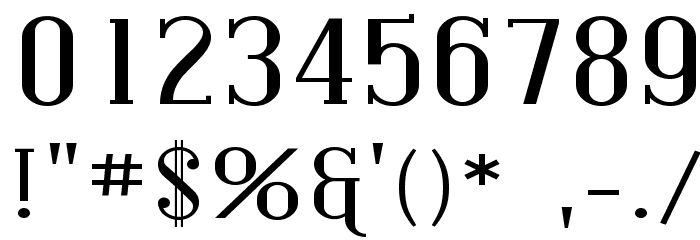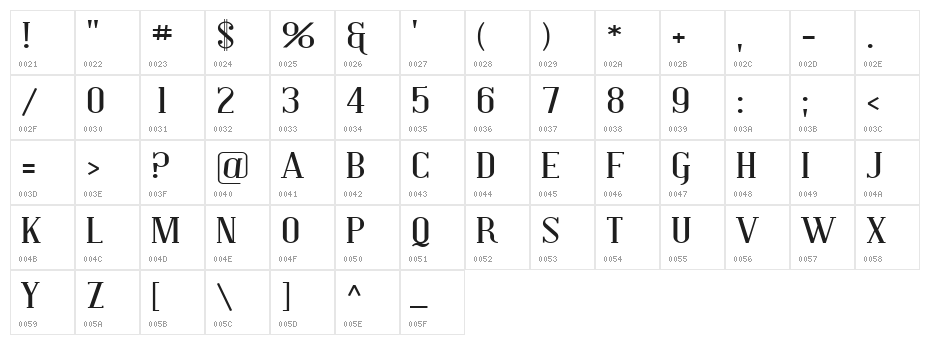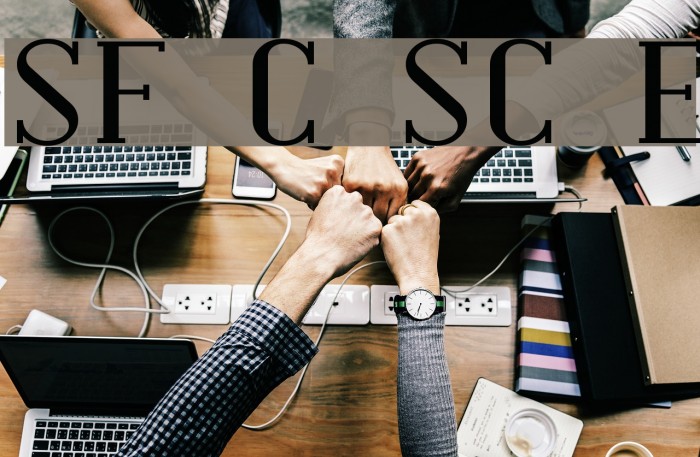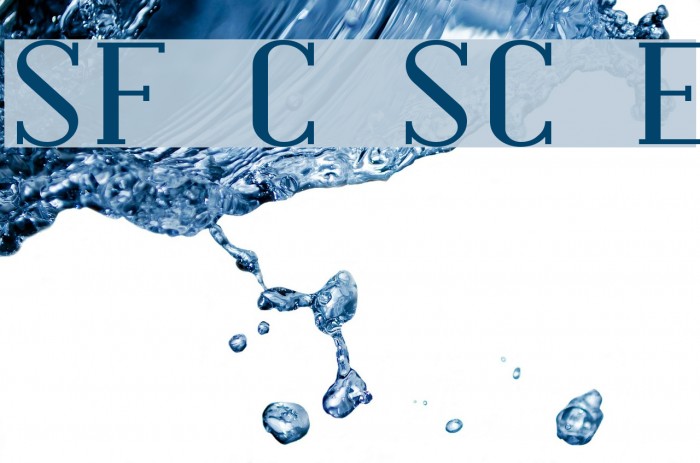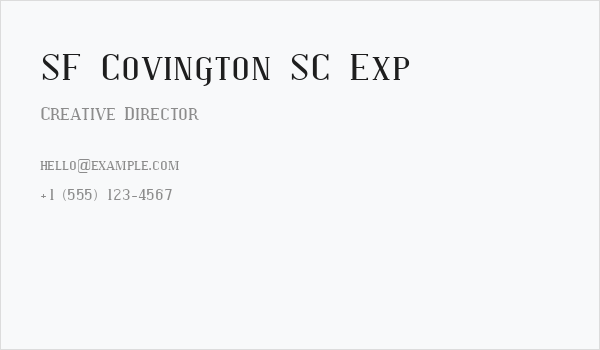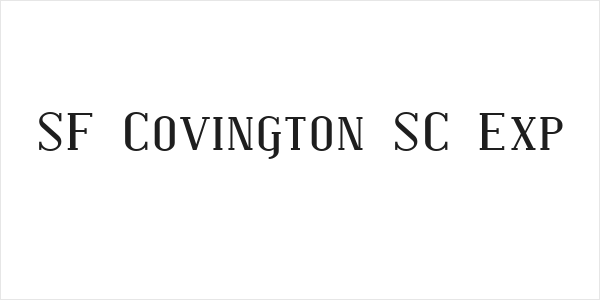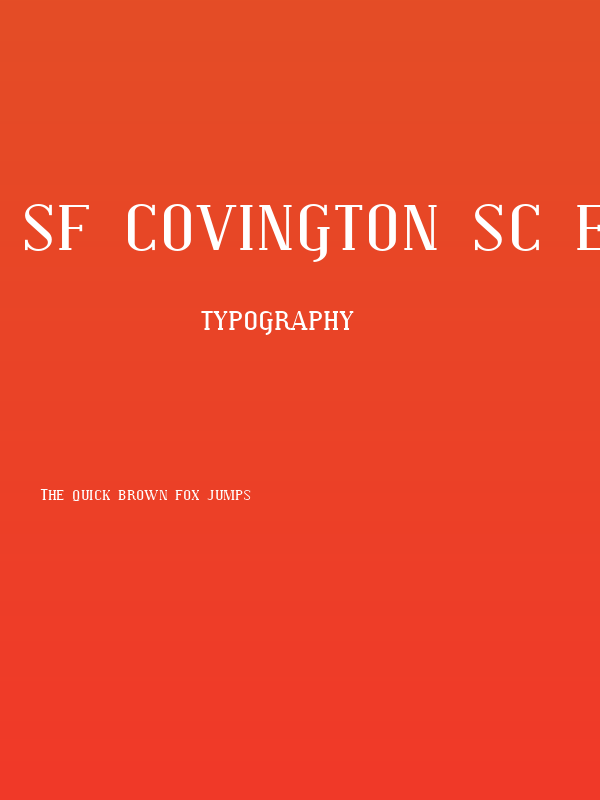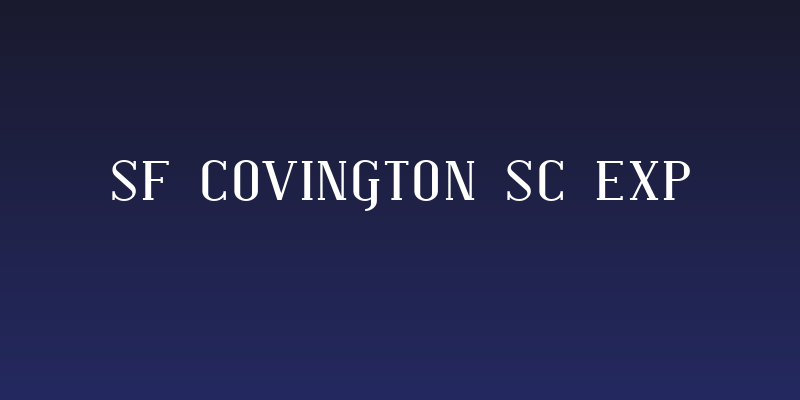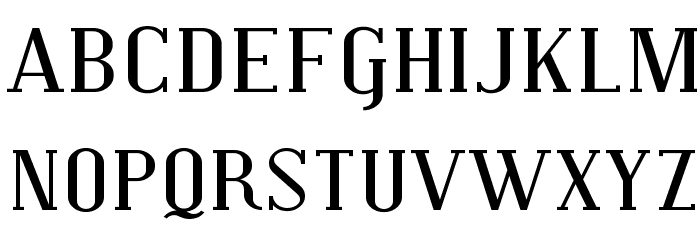
SF Covington SC Exp Font
SF Covington SC Exp Description
This font features a classic serif style with a modern twist, characterized by its elegant and refined letterforms. The uppercase letters exhibit a strong presence with sharp serifs and a balanced weight, while the lowercase letters maintain a consistent style that complements the uppercase. The numerals are clear and distinct, ensuring readability. Special characters are thoughtfully designed to match the overall aesthetic. The font's structure is both sophisticated and versatile, making it suitable for a variety of design applications.